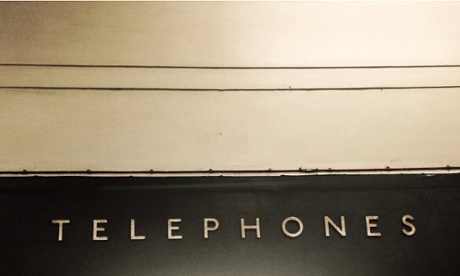
Fonts can play a powerful role in shaping the aesthetic identity of a city – and some places wishing to update their image turn to typeface design as a revitalising tool. The Dutch city of Eindhoven did just that.
Whether it’s Helvetica on New York’s subway system or Gill Sans on the London Underground, certain typefaces can be instantly evocative of place. We asked you to share pictures of your favourite fonts in cities – and here’s a collection of some of the best.
Bridge names Amsterdam
Most of the 2.000 bridges in A'dam have this lettering designed by Anton Kurvers in or 1930. They are still cast when needed.
Reduced headroom
Old fashioned lettering on a roadside sign in a tunnel below the railway
Johnston
There is absolutely nothing that sums up London and all its rich history than Edward Johnston's finest creation. His 1916 font is still in use and the little diamonds bring a smile to my face whenever I use the Tube. A 20th Century masterpiece!
Not just in NYC
Helvetica gets everywhere. This was on a sign in Leeds Station
Brighton & Hove
I've always liked the street signs around Brighton and Hove. This one points towards Hove Museum.
Motocycle Shop Front
A found sign in Nafplio, Greece. I love the faded colours and tones
French Grocery Font
Love the old hand painted shop signs, this was in a hidden corner of Narbonne
Phonebox door
A great font on the door of the traditional red phonebox
Street signs in Bratislava
This typeface isn't specific to Bratislava, it can be seen almost everywhere in Slovakia with minor variations. It exists in two styles, normal and narrow, and can differ in how rounded corners are.